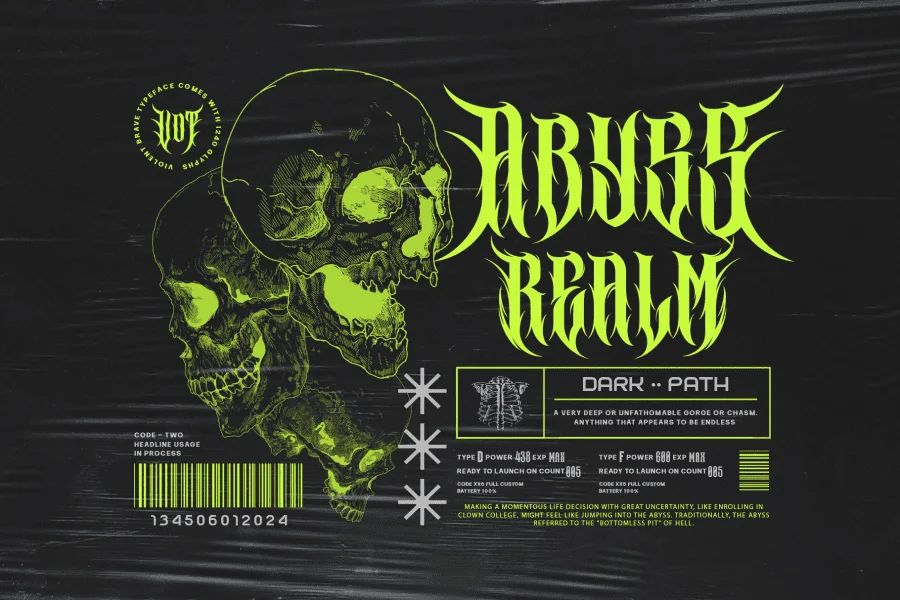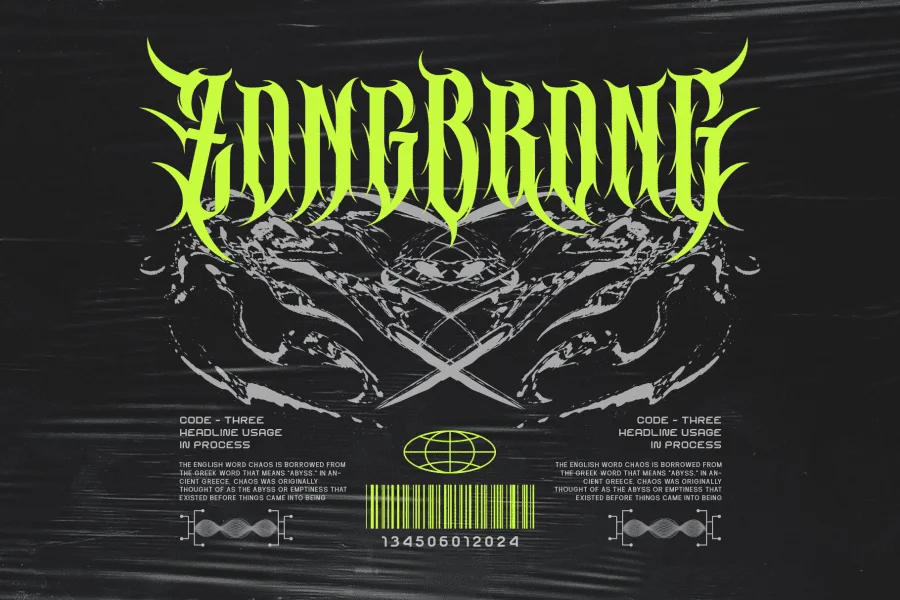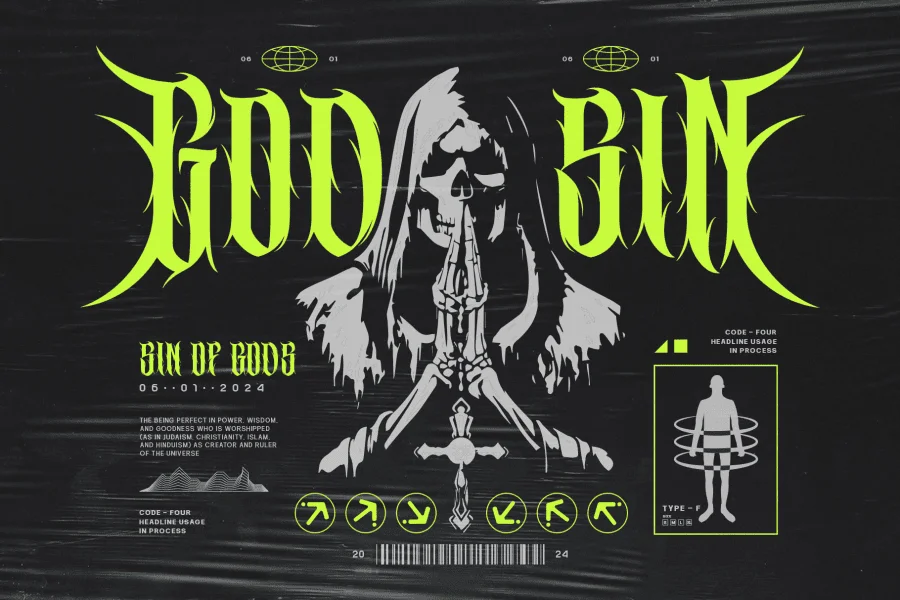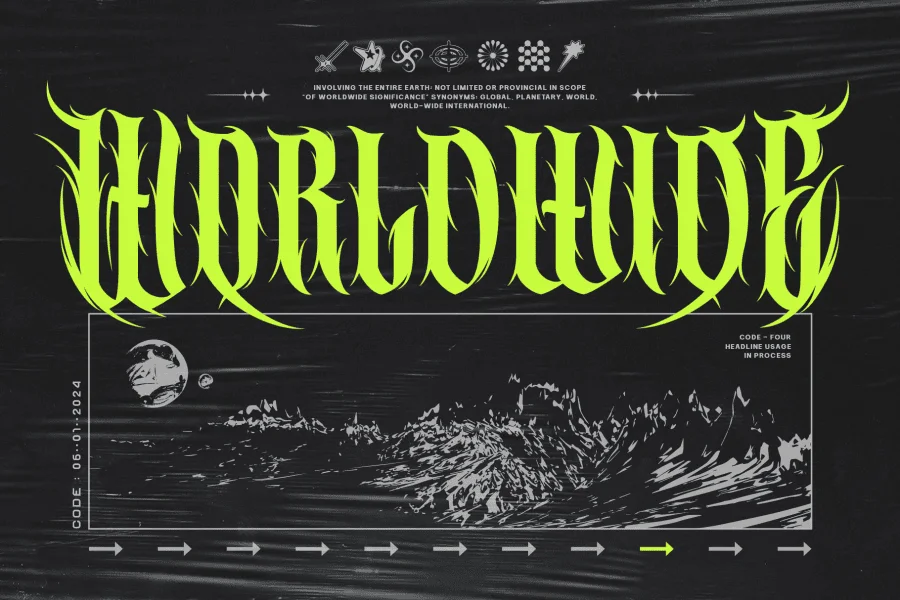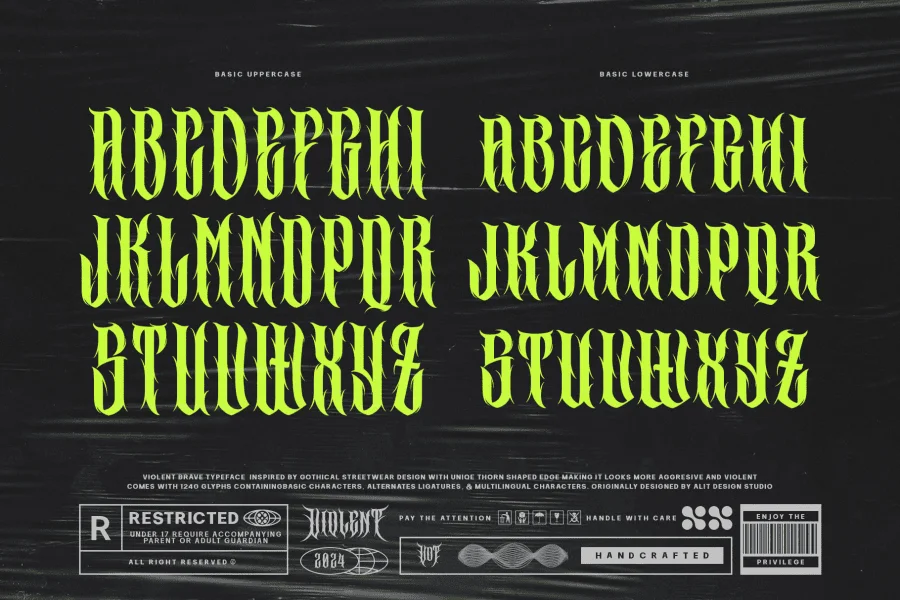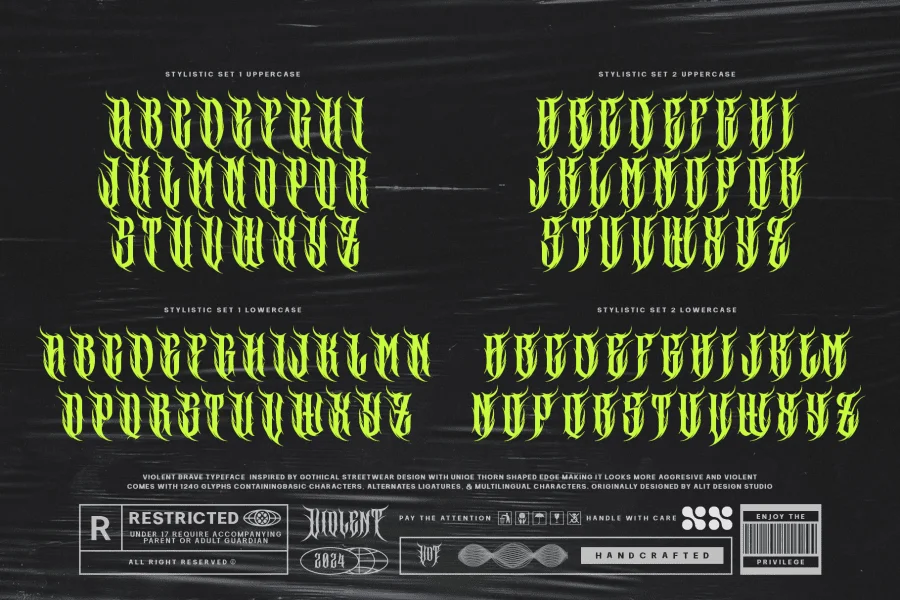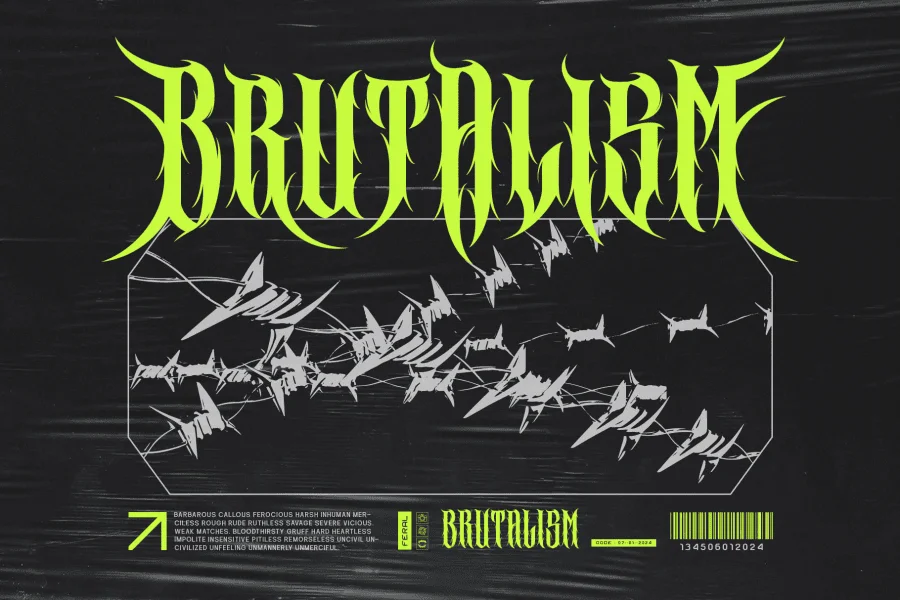
Introducing the "Violent Brave Brutalism Typeface" - a cutting-edge font that seamlessly merges modern aesthetics with a fearless and commanding metal concept. This typographic masterpiece is designed for those who seek to make a bold statement with their visual communication.